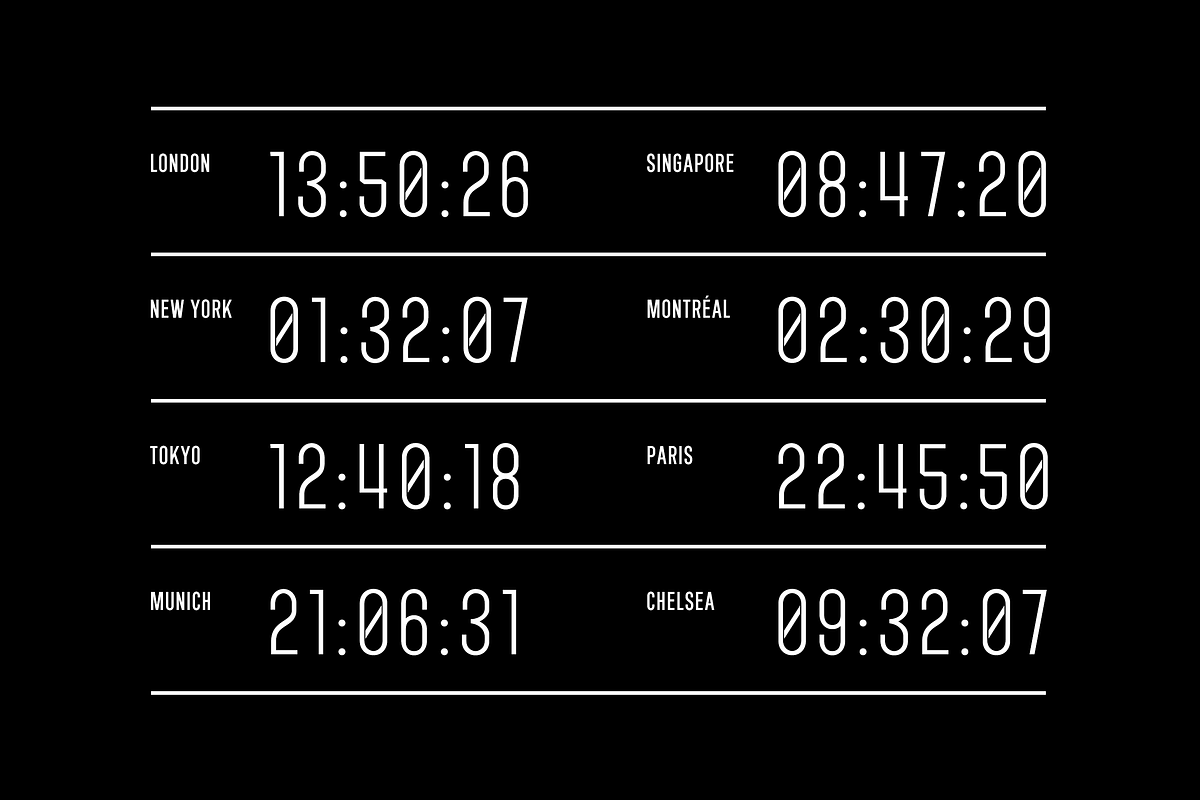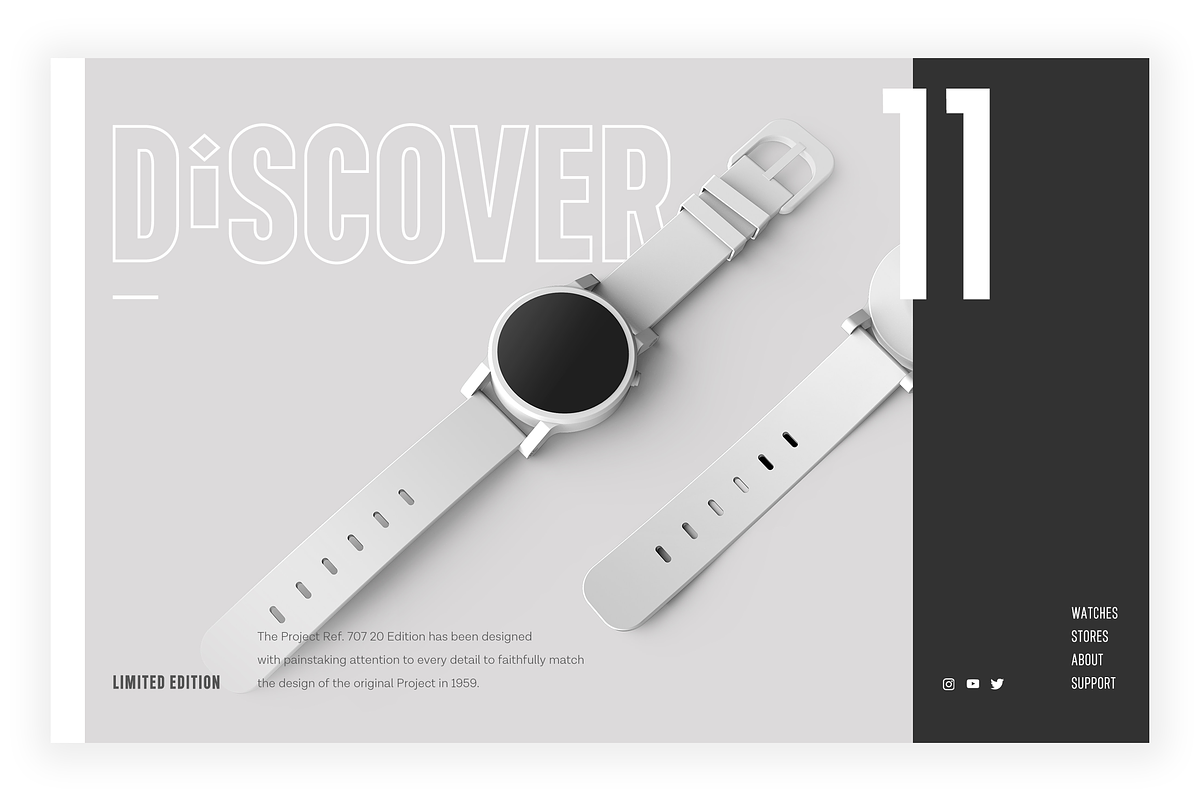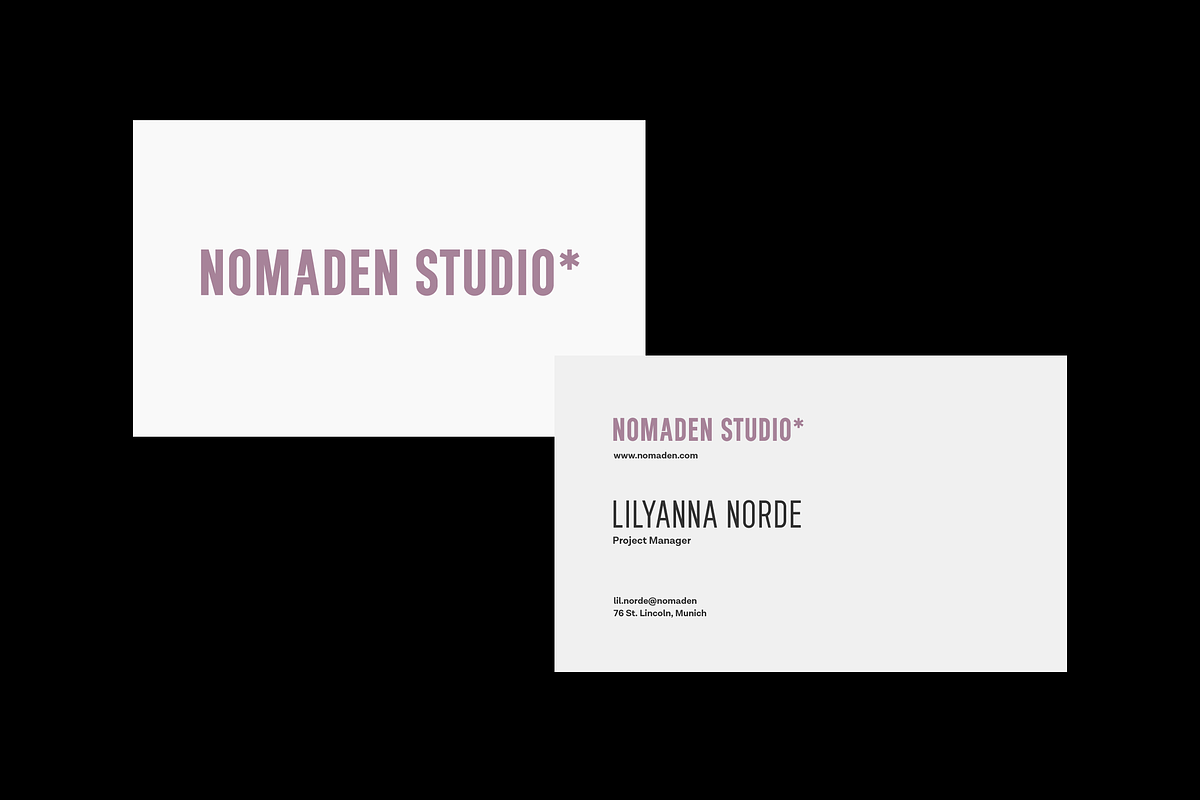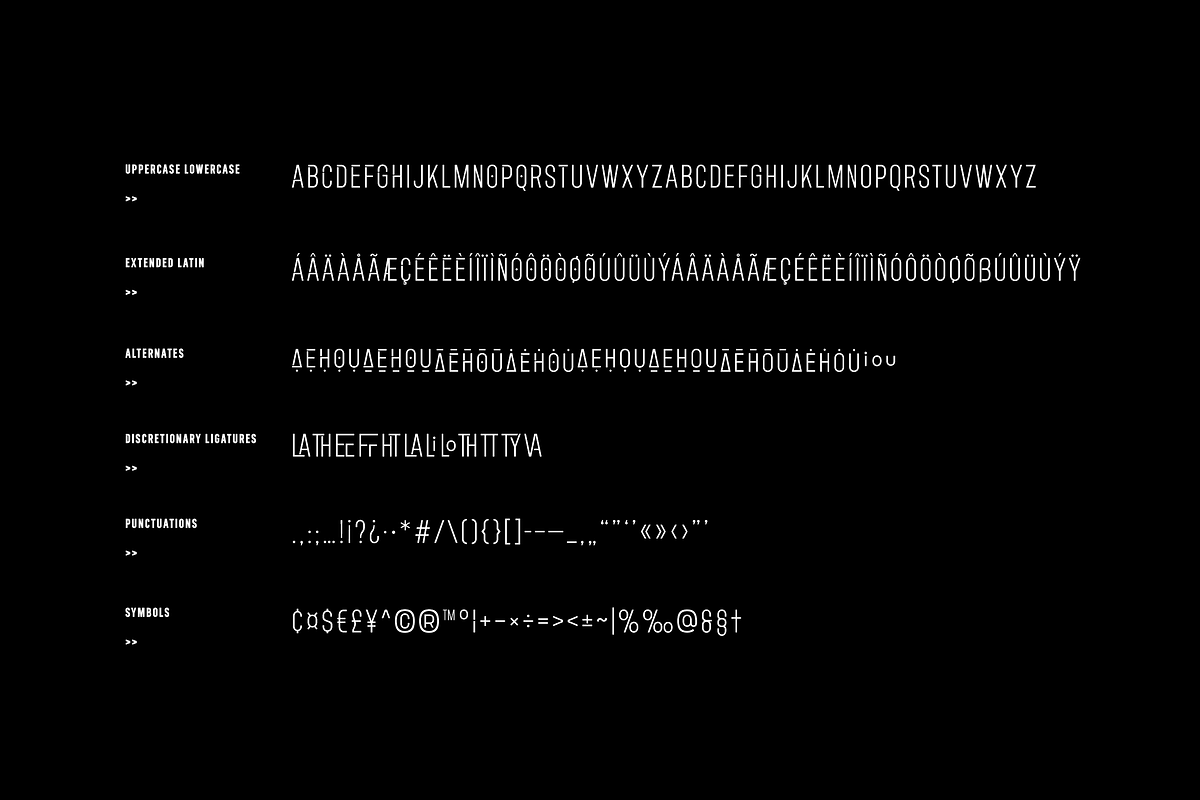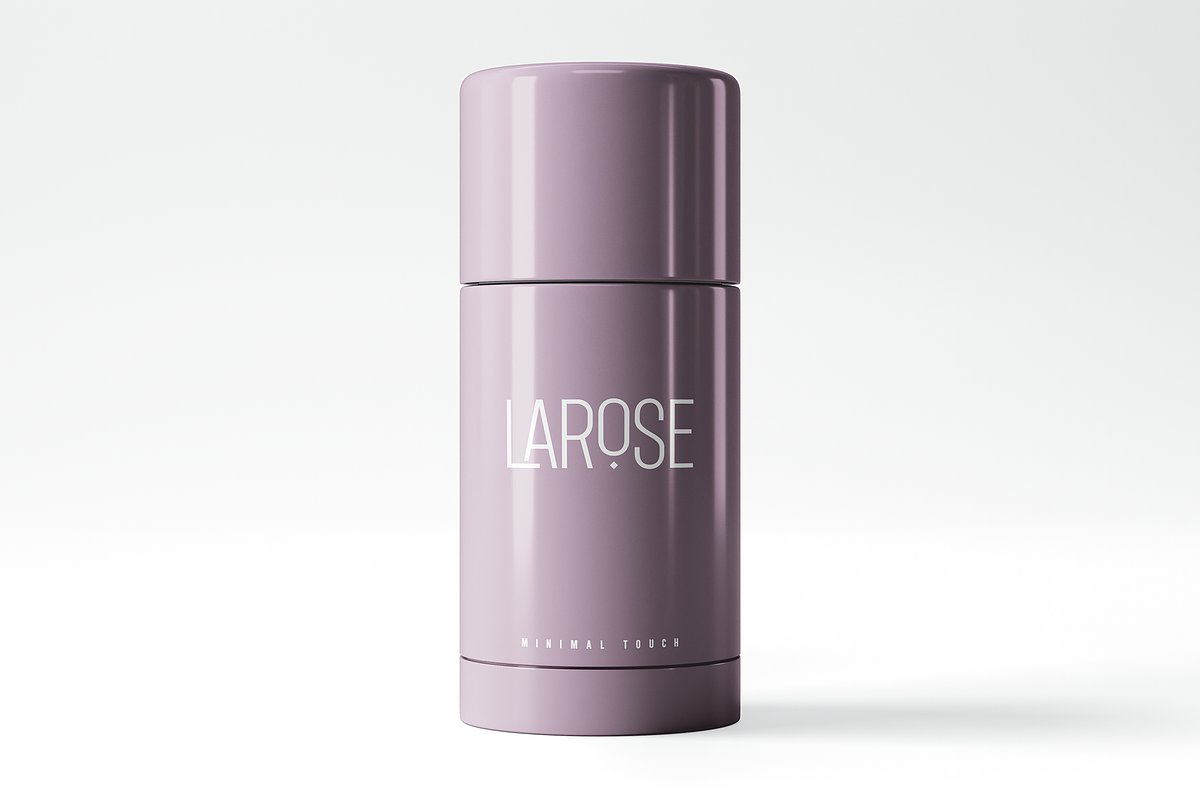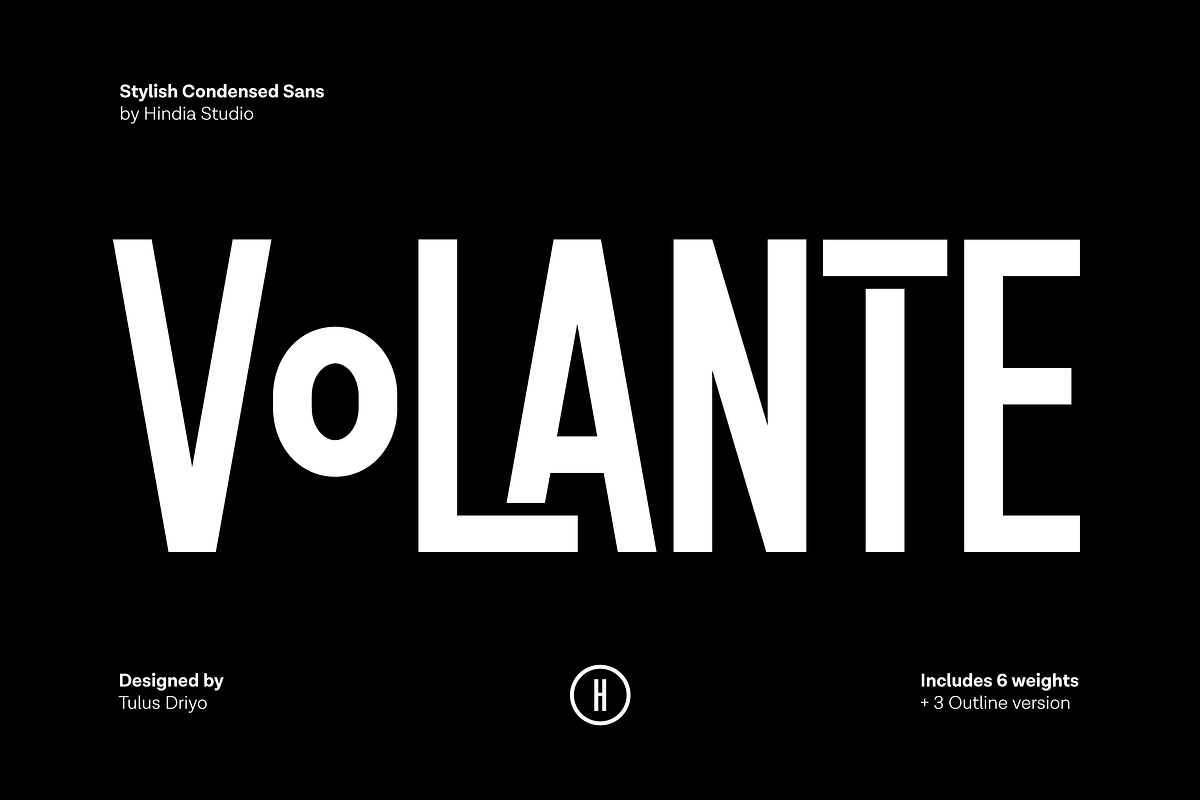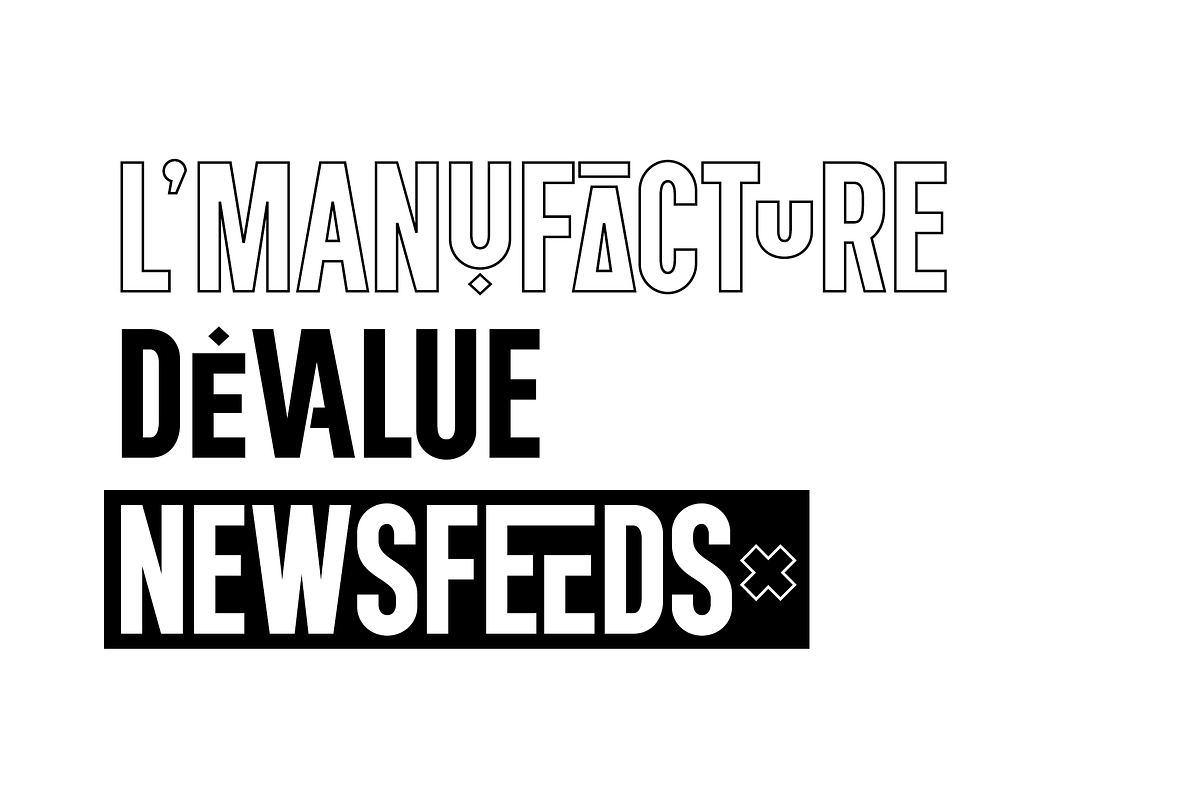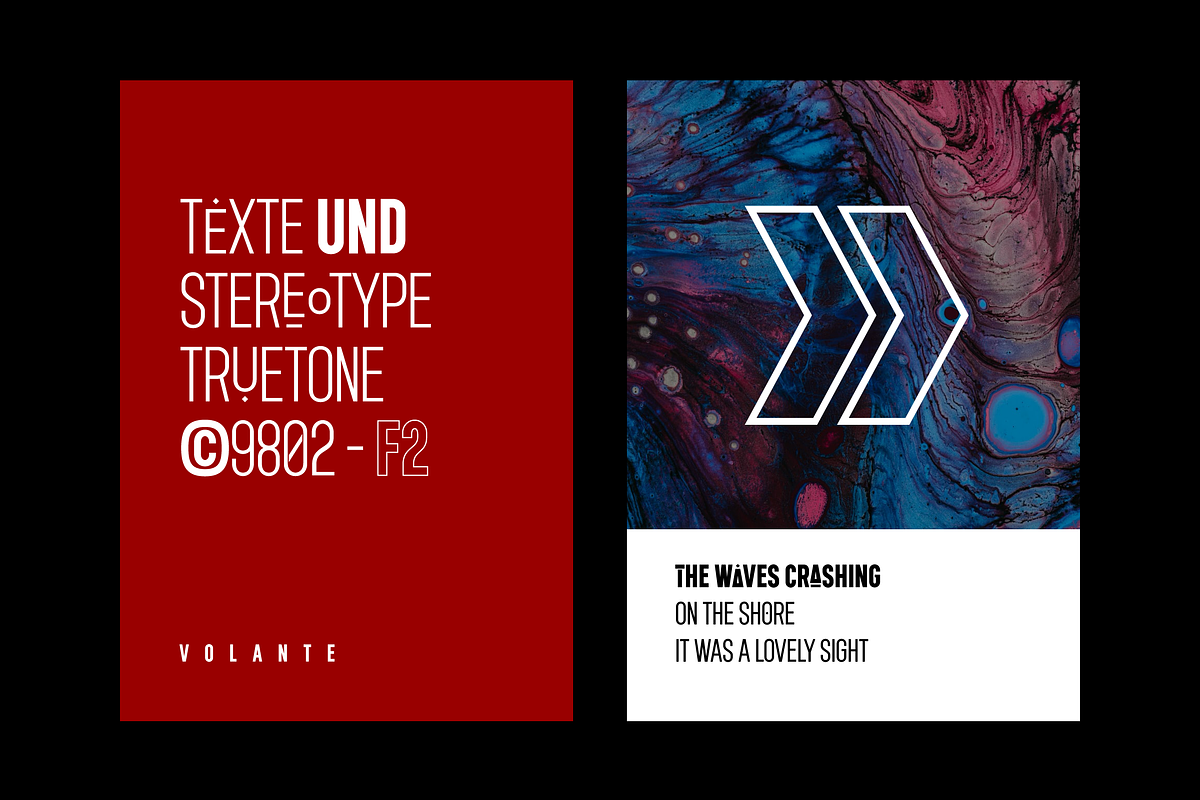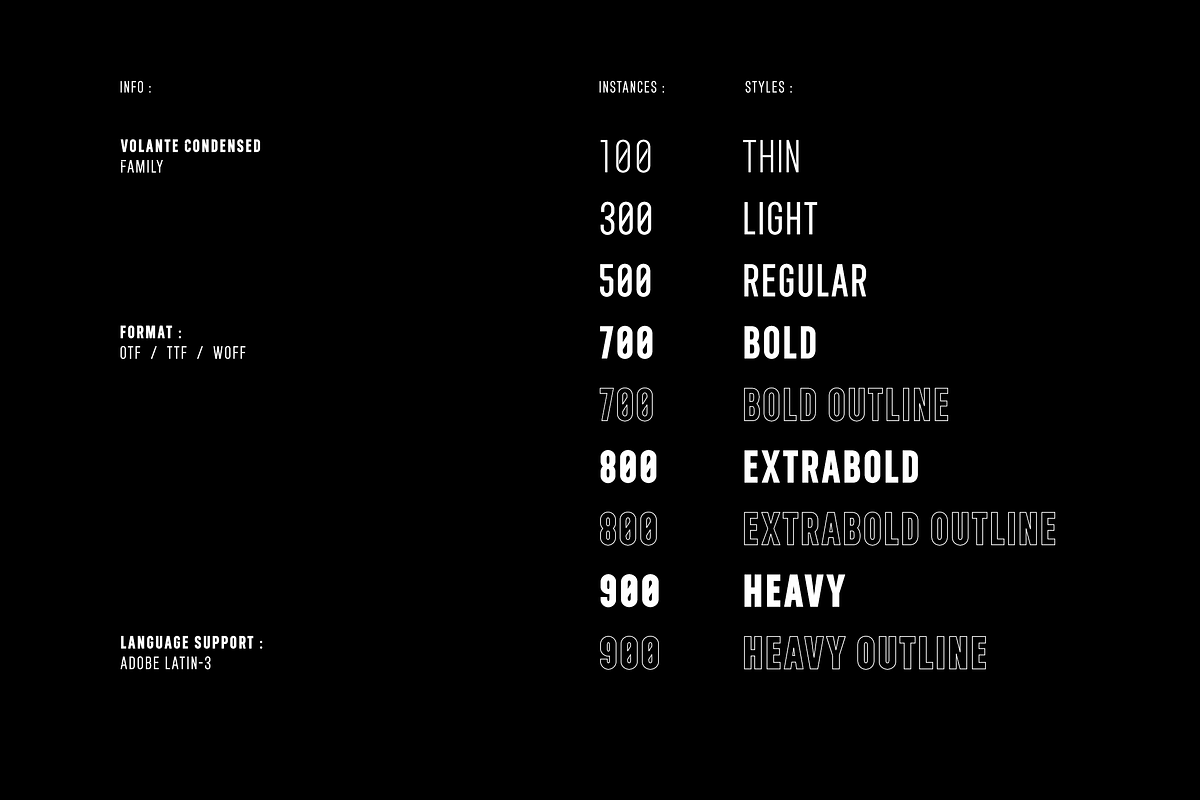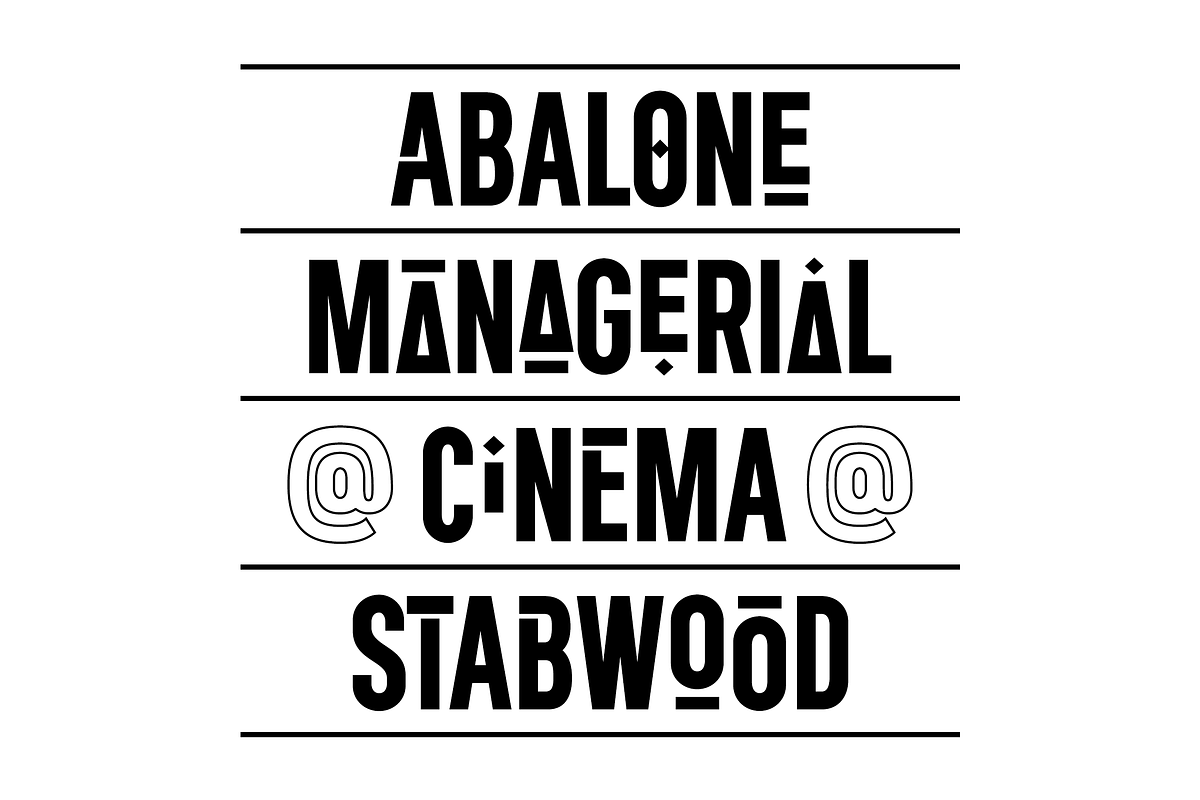
Volante - Condensed Sans
Volante | Stylish Condensed Sans
Volante is a gorgeous condensed sans serif typeface that comes with various stylistic alternates and discretionary ligatures. It comes with multiple weights, from thin to heavy, with 3 extra outline styles. This is perfect to sweeten up your headlines, branding visual identity, editorial, poster, and etc.
- 6 weights plus 3 outlines, 9 fonts in total
- Titling/All Caps design
- Uppercase, Numbers, Punctuations
- Alternates & Discretionary Ligatures
- Accents - Multilingual characters - Adobe Latin 3